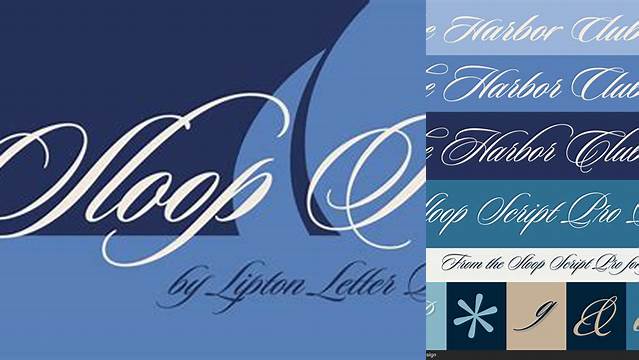
Hey guys! Are you on the hunt for that perfect font to add a touch of elegance and personality to your design projects? Look no further! In this comprehensive guide, we’re diving deep into the world of Sloop Script Pro, a font that has been making waves in the design community. We'll explore what makes it so special, where you can find it, and how you can use it to elevate your creative work. So, buckle up and let's get started!
What Makes Sloop Script Pro So Special?
Let's kick things off by understanding why Sloop Script Pro has garnered so much attention. This isn't just another script font; it's a meticulously crafted typeface that blends classic calligraphy with modern design sensibilities. The result? A font that's both timeless and contemporary, making it incredibly versatile for a wide range of applications. The flowing lines and graceful curves of Sloop Script Pro exude sophistication, while its subtle quirks add a touch of playfulness. This unique combination makes it perfect for everything from wedding invitations and branding materials to website headers and social media graphics. What truly sets Sloop Script Pro apart is its attention to detail. The designers have carefully considered every letterform, ensuring a harmonious balance and seamless connectivity. This level of craftsmanship is evident in the font's smooth transitions and elegant flourishes, which create a visual rhythm that's pleasing to the eye. Sloop Script Pro isn't just about aesthetics; it's also about functionality. The font is designed to be highly legible, even at smaller sizes, making it a practical choice for body text as well as display applications. This versatility is a major selling point for designers who need a font that can work across various media and contexts. Moreover, Sloop Script Pro often comes with a range of weights and styles, allowing you to create visual hierarchy and add depth to your designs. From light and airy to bold and impactful, the different variations of Sloop Script Pro offer a spectrum of possibilities. And let's not forget the importance of ligatures and alternative characters. These stylistic extras can add a personalized touch to your typography, making your designs truly unique. Sloop Script Pro often includes a generous selection of these features, giving you the freedom to experiment and create stunning visual effects. In a nutshell, Sloop Script Pro is more than just a pretty typeface; it's a versatile and well-crafted tool that can help you communicate your message with style and grace. Whether you're a seasoned designer or just starting out, this font is definitely worth exploring. Its blend of classic elegance and modern functionality makes it a standout choice for any project that demands a touch of sophistication.
How to Use Sloop Script Pro in Your Designs
Alright, you've got Sloop Script Pro in your font library—now what? This font is incredibly versatile, but like any design tool, it's all about knowing how to use it effectively. Let's explore some tips and tricks for incorporating Sloop Script Pro into your projects and making your designs shine. One of the most common uses for script fonts like Sloop Script Pro is in branding. Its elegant and flowing lines can add a touch of sophistication and personality to logos, business cards, and other branding materials. However, it's crucial to use it sparingly and in combination with a more legible sans-serif or serif font for body text. Overusing script fonts can make your designs look cluttered and difficult to read. For a logo, consider using Sloop Script Pro for the main brand name and pairing it with a clean, minimalist font for the tagline or supporting text. This creates a balanced and visually appealing look. Sloop Script Pro is also a fantastic choice for wedding invitations and stationery. Its romantic and graceful aesthetic perfectly complements the occasion. Use it for headings, titles, and other prominent text elements, and consider incorporating decorative flourishes and ligatures to add a touch of elegance. When designing invitations, pay attention to the overall layout and spacing. A well-designed invitation should be easy to read and visually harmonious. Use a consistent color palette and choose paper stock that complements the font's style. Social media graphics are another area where Sloop Script Pro can shine. Use it to create eye-catching quotes, announcements, and promotional graphics. However, keep in mind that social media visuals need to be attention-grabbing and easy to digest at a glance. Use Sloop Script Pro for short, impactful phrases and pair it with strong visuals. Experiment with different color combinations and layouts to see what works best. When using Sloop Script Pro, it's essential to consider the context and target audience. A font that works well for a luxury brand might not be the best choice for a children's book. Think about the message you're trying to convey and choose fonts that align with your brand's personality and values. Don't be afraid to experiment with different font pairings. Sloop Script Pro pairs well with a variety of fonts, from classic serifs to modern sans-serifs. Try different combinations and see what feels right for your project. A good rule of thumb is to choose a font that contrasts with Sloop Script Pro in terms of weight and style to create visual interest. Finally, always pay attention to typography basics. Kerning, leading, and tracking can make a big difference in the overall appearance of your text. Make sure your text is legible and well-spaced, and don't be afraid to adjust these settings to achieve the desired effect. By following these tips, you can effectively incorporate Sloop Script Pro into your designs and create stunning visuals that capture attention and communicate your message with style.
Font Pairing Ideas for Sloop Script Pro
Choosing the right font to pair with Sloop Script Pro can be a game-changer, guys! It's all about creating balance and visual harmony in your designs. A well-chosen pairing can elevate your typography from good to amazing. So, let's explore some fantastic font pairing ideas that will make Sloop Script Pro truly shine. First up, we have the classic combination of Sloop Script Pro with a clean sans-serif font. Think of fonts like Montserrat, Open Sans, or Lato. These sans-serifs are highly legible and have a modern, minimalist feel that contrasts beautifully with the elegant curves of Sloop Script Pro. This pairing is perfect for logos, websites, and branding materials where you want to convey a sense of sophistication and clarity. The sans-serif provides a grounding element, while Sloop Script Pro adds a touch of personality. Next, let's consider pairing Sloop Script Pro with a timeless serif font. Fonts like Garamond, Times New Roman, or Playfair Display can create a sense of classic elegance and refinement. This combination is ideal for wedding invitations, stationery, and other formal designs. The serif font adds a touch of tradition, while Sloop Script Pro brings a modern twist. When using this pairing, pay attention to the weight and size of the fonts. A heavier serif can balance out the delicate strokes of Sloop Script Pro, while a lighter serif can create a more airy and elegant feel. If you're looking for a more contemporary pairing, try combining Sloop Script Pro with a geometric sans-serif like Futura, Avenir, or Circular. These fonts have a clean, modern aesthetic that complements the fluidity of Sloop Script Pro. This combination works well for branding, packaging, and web design where you want to convey a sense of innovation and style. The geometric sans-serif provides a strong, structured counterpoint to the flowing script. For a more playful and whimsical feel, consider pairing Sloop Script Pro with a quirky sans-serif or a hand-drawn font. Fonts like Amatic SC or Indie Flower can add a touch of personality and charm to your designs. This combination is perfect for social media graphics, blog headers, and other informal applications. Just be careful not to overdo it with the quirky fonts, as they can sometimes be difficult to read. Another great option is to pair Sloop Script Pro with a monospaced font like Courier New or Roboto Mono. This combination creates a unique and modern contrast that's perfect for web design and coding-related projects. The monospaced font adds a technical feel, while Sloop Script Pro brings a touch of elegance. When pairing fonts, it's crucial to consider the overall tone and message of your design. Choose fonts that complement each other and work together to create a cohesive visual identity. Experiment with different combinations and don't be afraid to break the rules. The most important thing is to find a pairing that feels right for your project. By following these tips, you can create stunning typography that elevates your designs and captures the attention of your audience.
So, there you have it, guys! A comprehensive guide to Sloop Script Pro and how to make the most of it in your design projects. This elegant and versatile font is a fantastic addition to any designer's toolkit, and with the tips and tricks we've covered, you'll be creating stunning visuals in no time. Remember, finding the perfect font is just the first step. It's all about how you use it! Experiment with different pairings, explore the stylistic extras, and always pay attention to the overall message you're trying to convey. Happy designing!